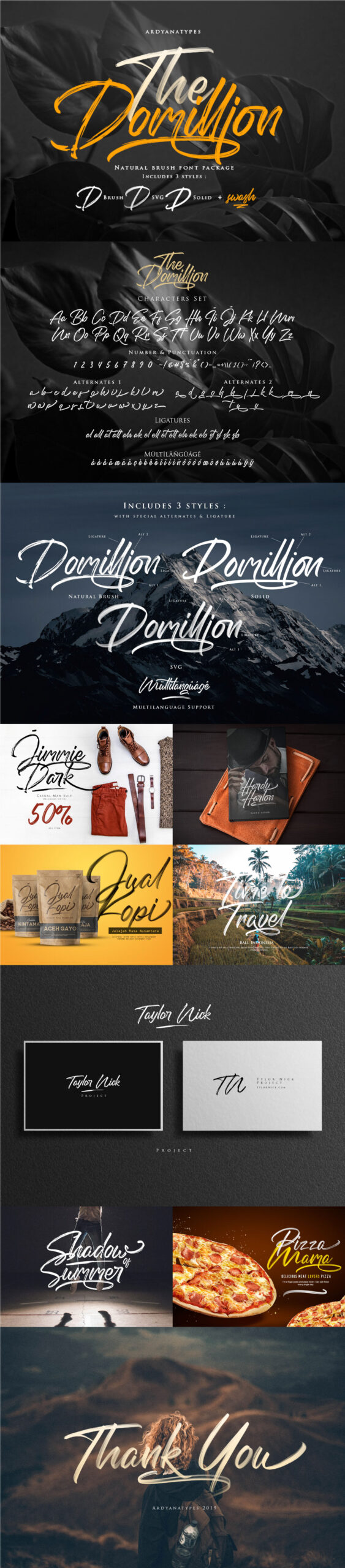
If your typeface toolbox is in need of an upgrade, this font is for you! The classy Domillion, from Ardyanatypes, is every bit elegant as it is bold. Domillion is the perfect choice for posters, signatures, logos, quotes, album covers, business cards, product designs and much more! Free for personal use! For commercial use please go here.